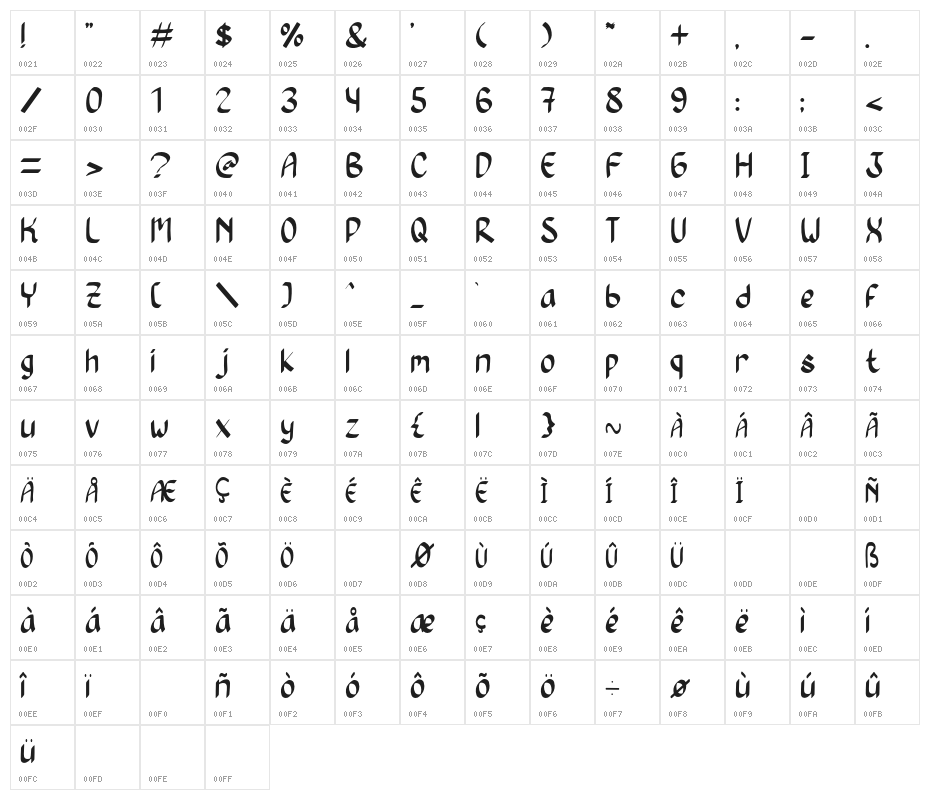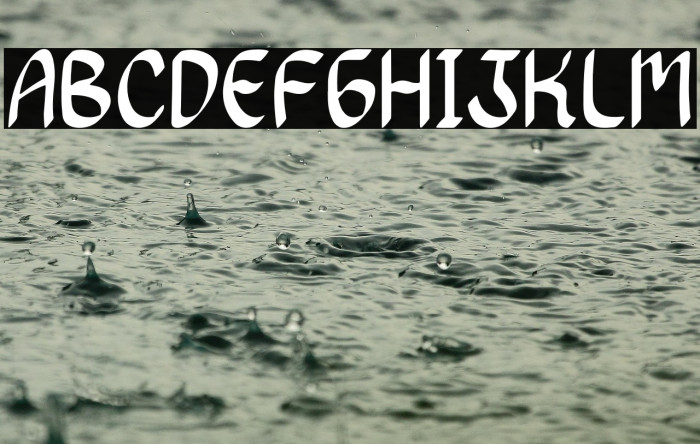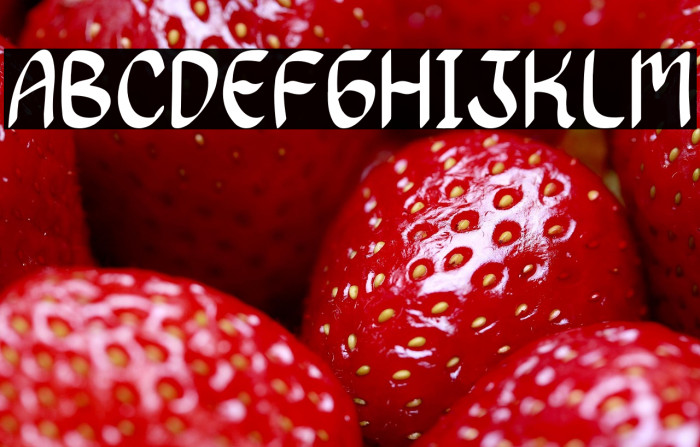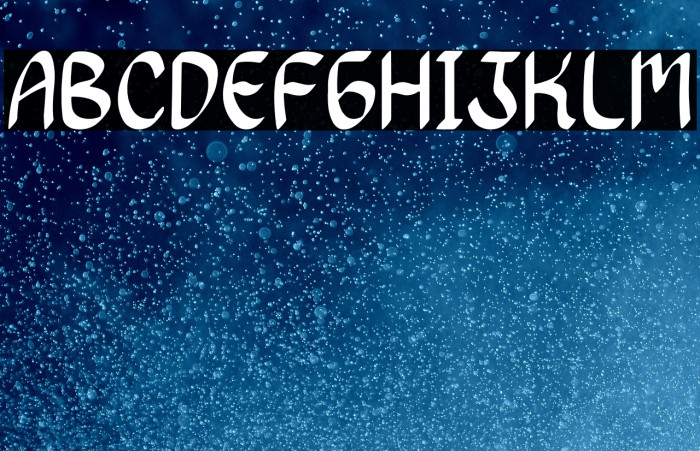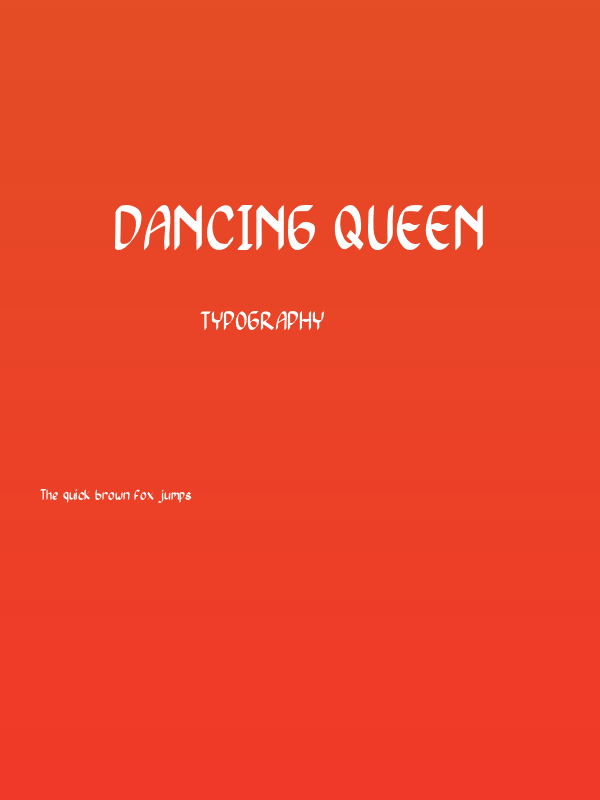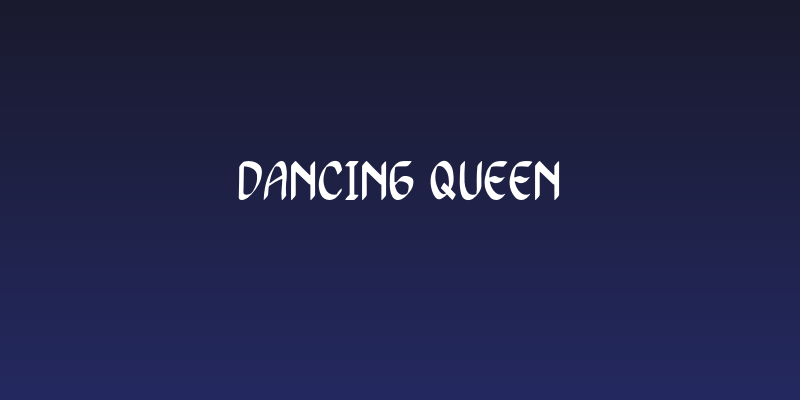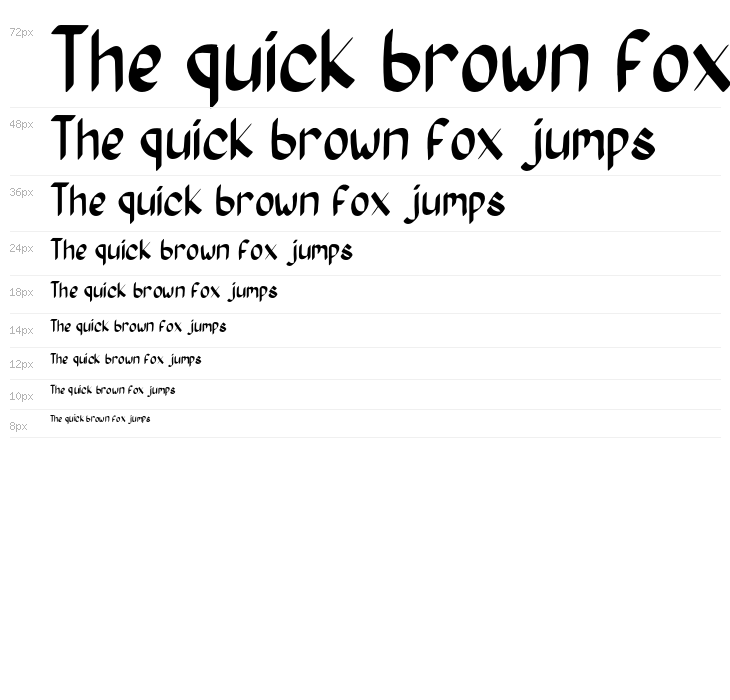
Dancing Queen Font
Dancing Queen Description
This font features a lively and dynamic style, characterized by its bold and flowing strokes. The letters have a playful and rhythmic quality, with a slight slant that adds to its energetic appearance. The uppercase letters are distinct with sharp angles and curves, while the lowercase letters maintain a consistent flow, enhancing readability. The numerals are well-balanced, complementing the overall aesthetic. Special characters are creatively designed, adding a unique flair. This font's design is both artistic and functional, making it suitable for a variety of creative projects.